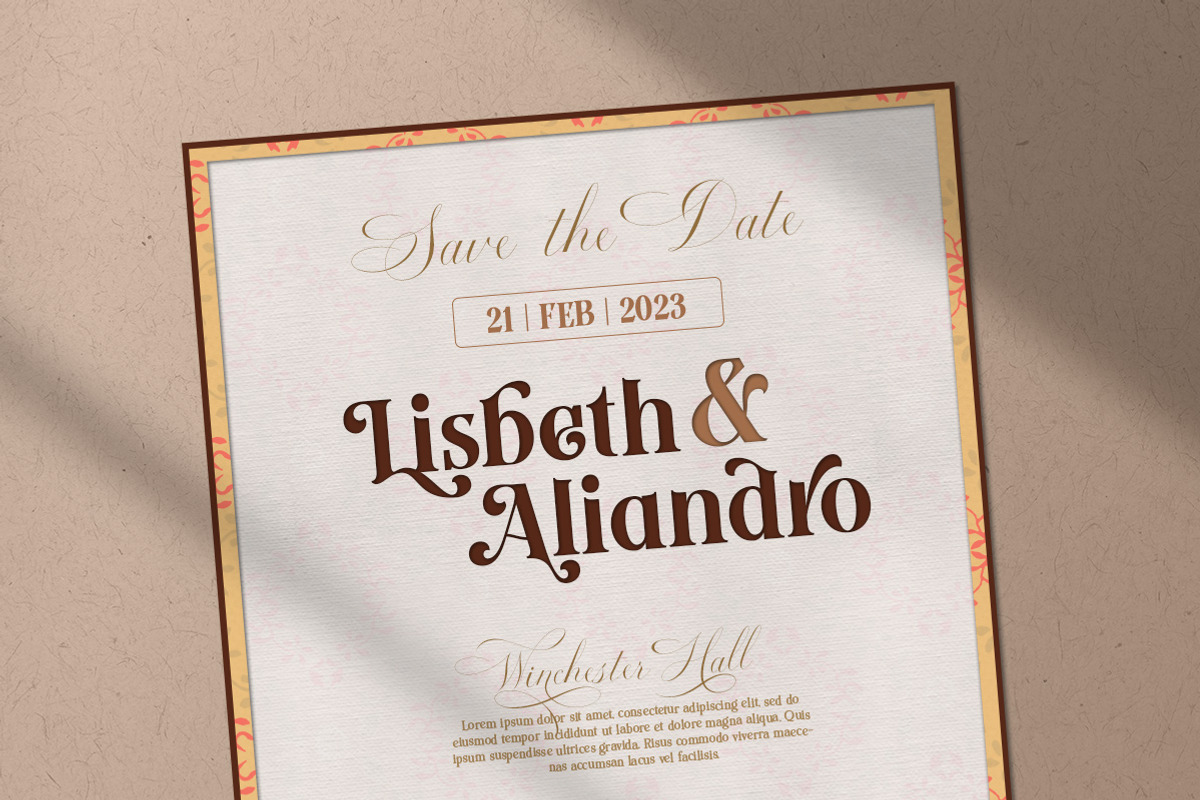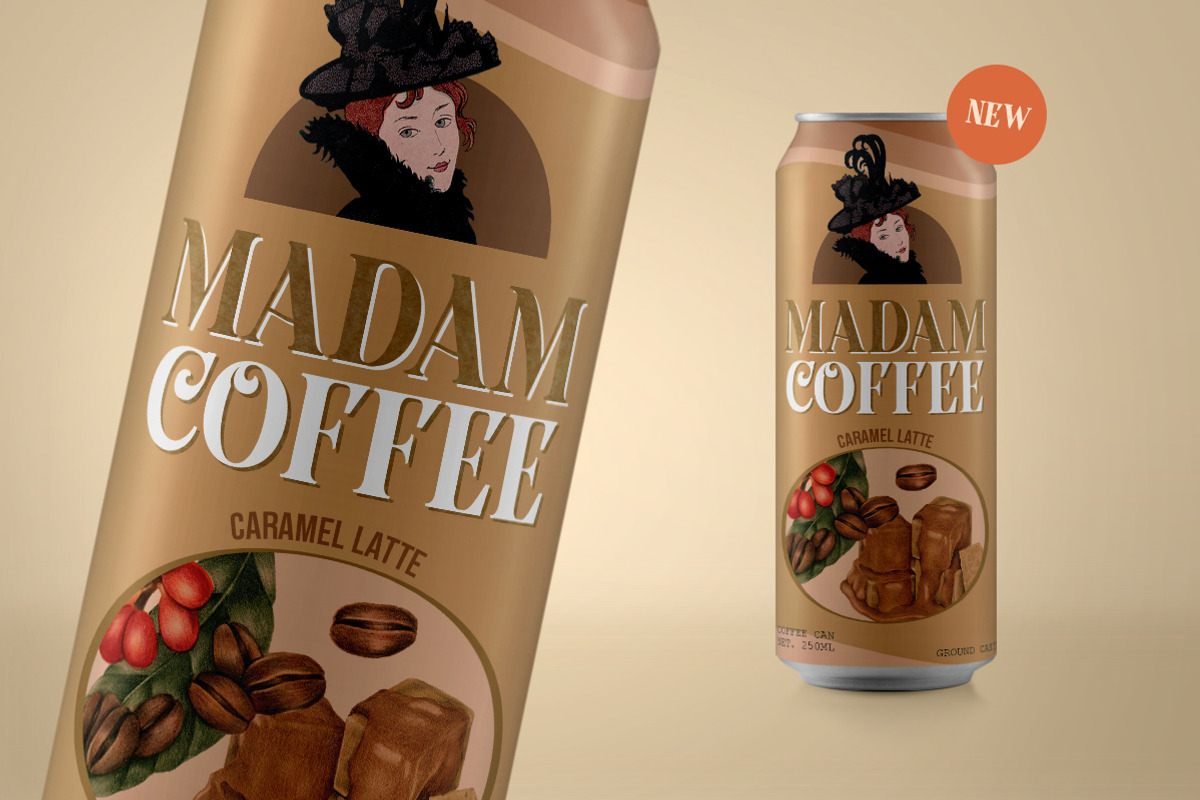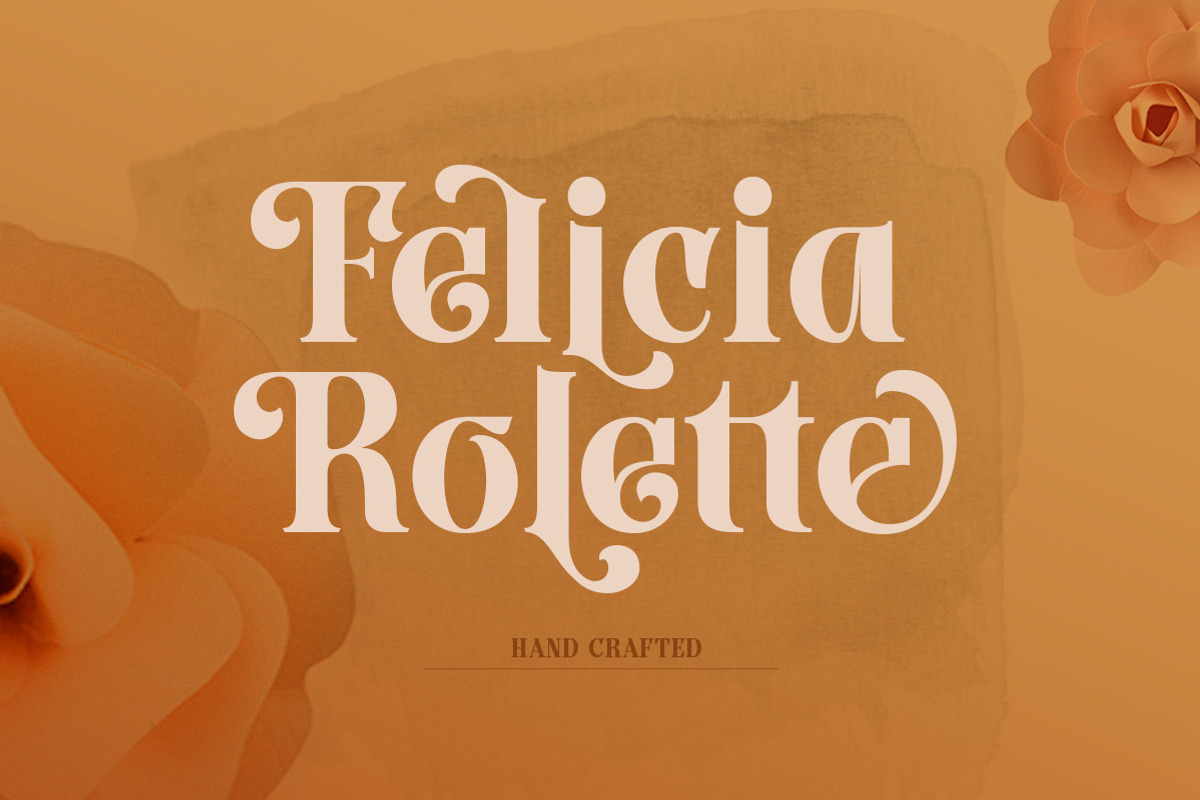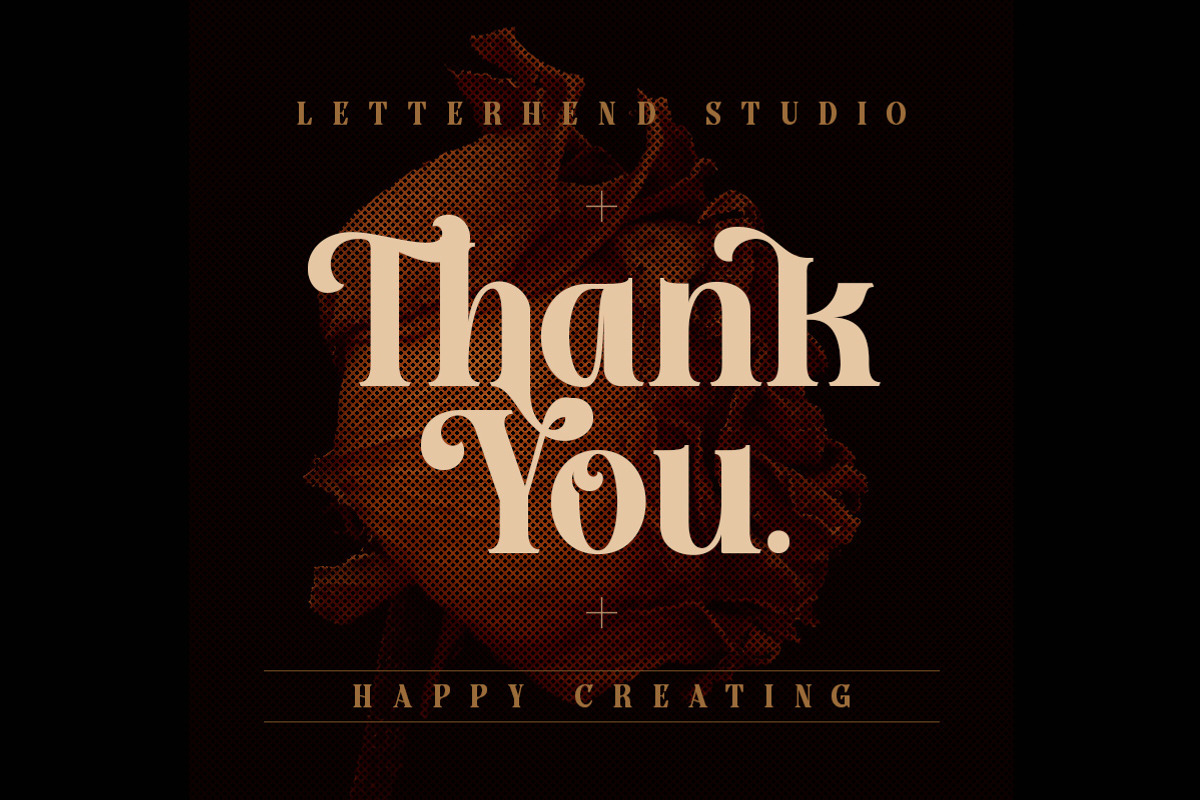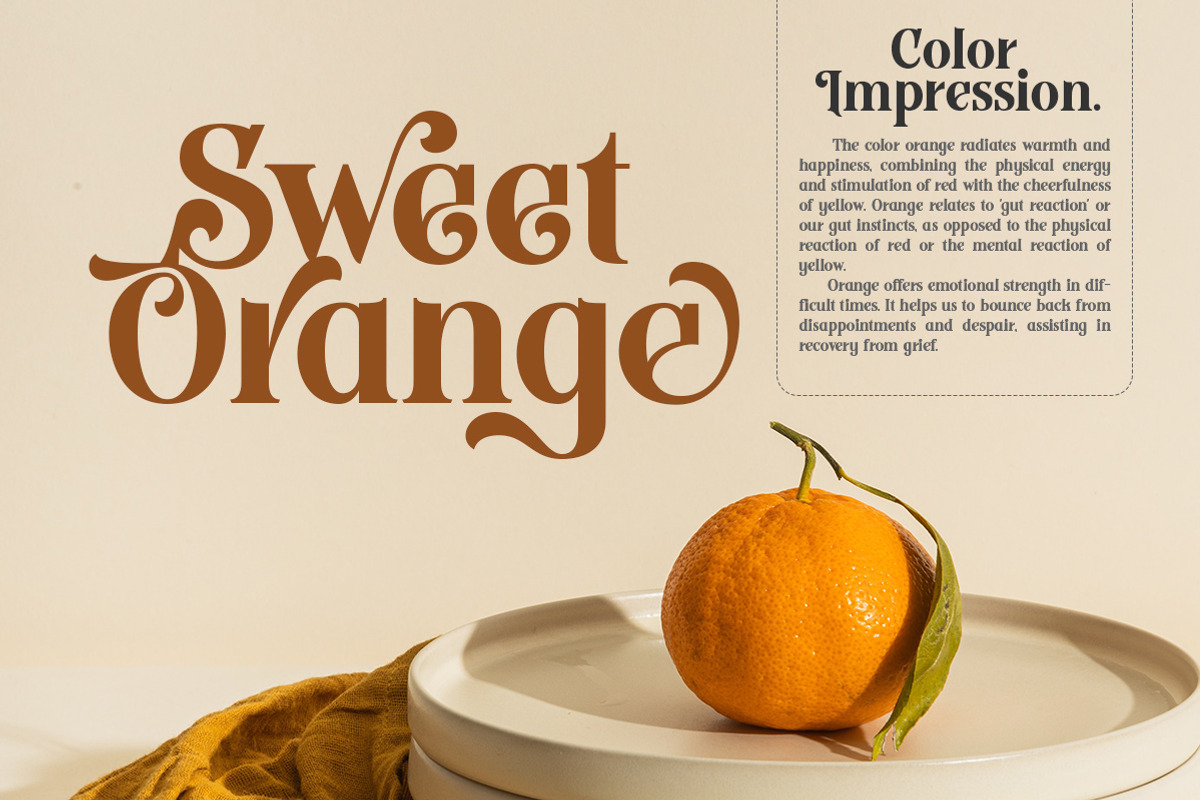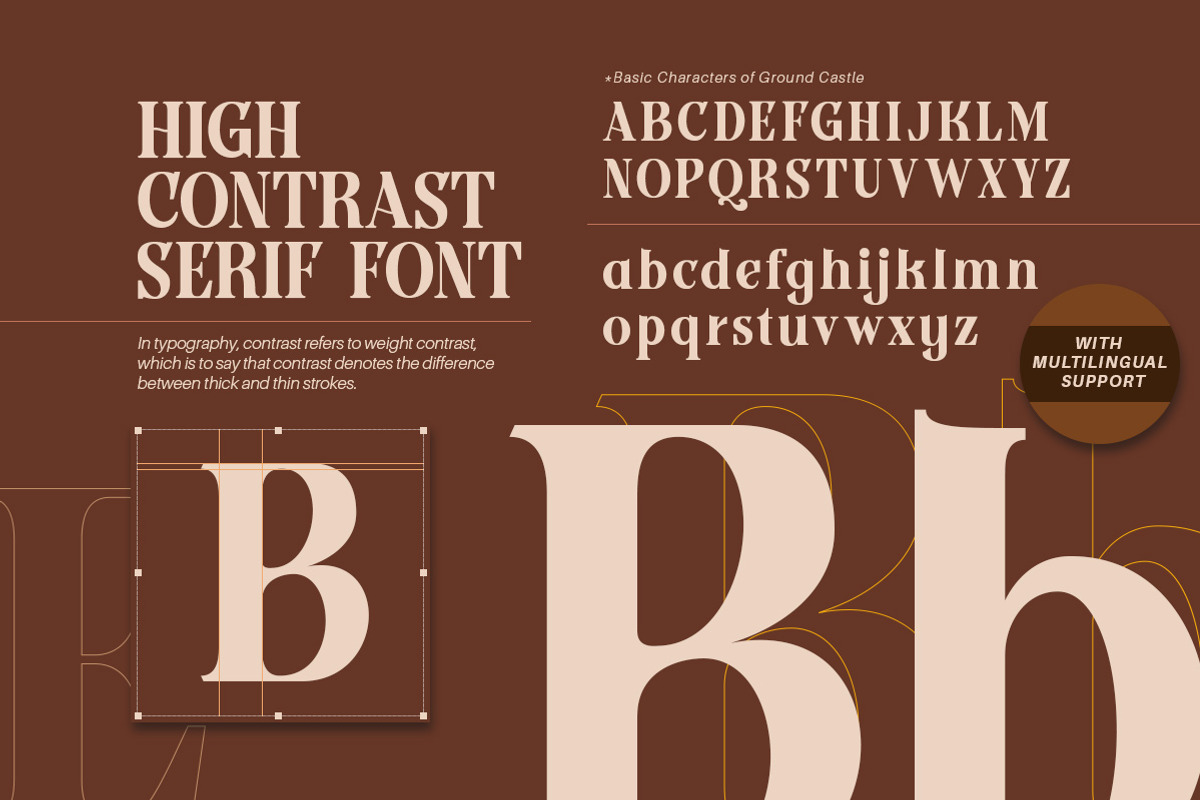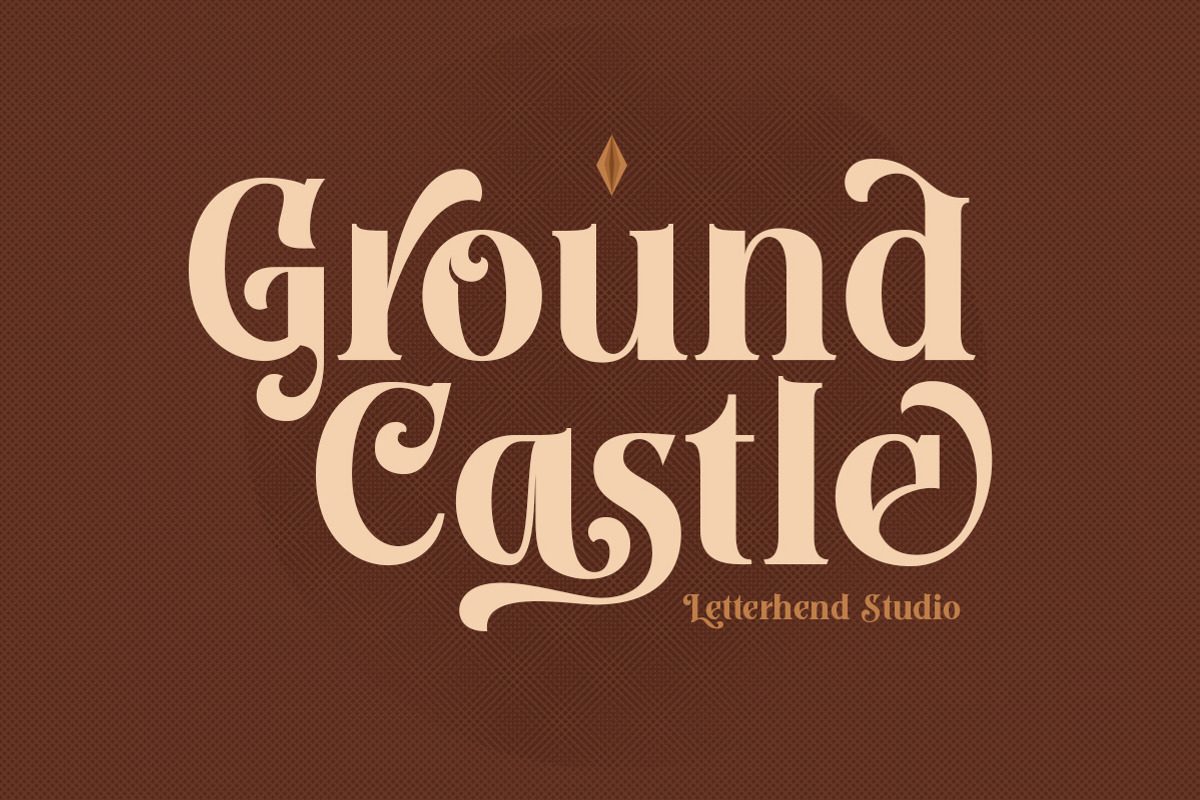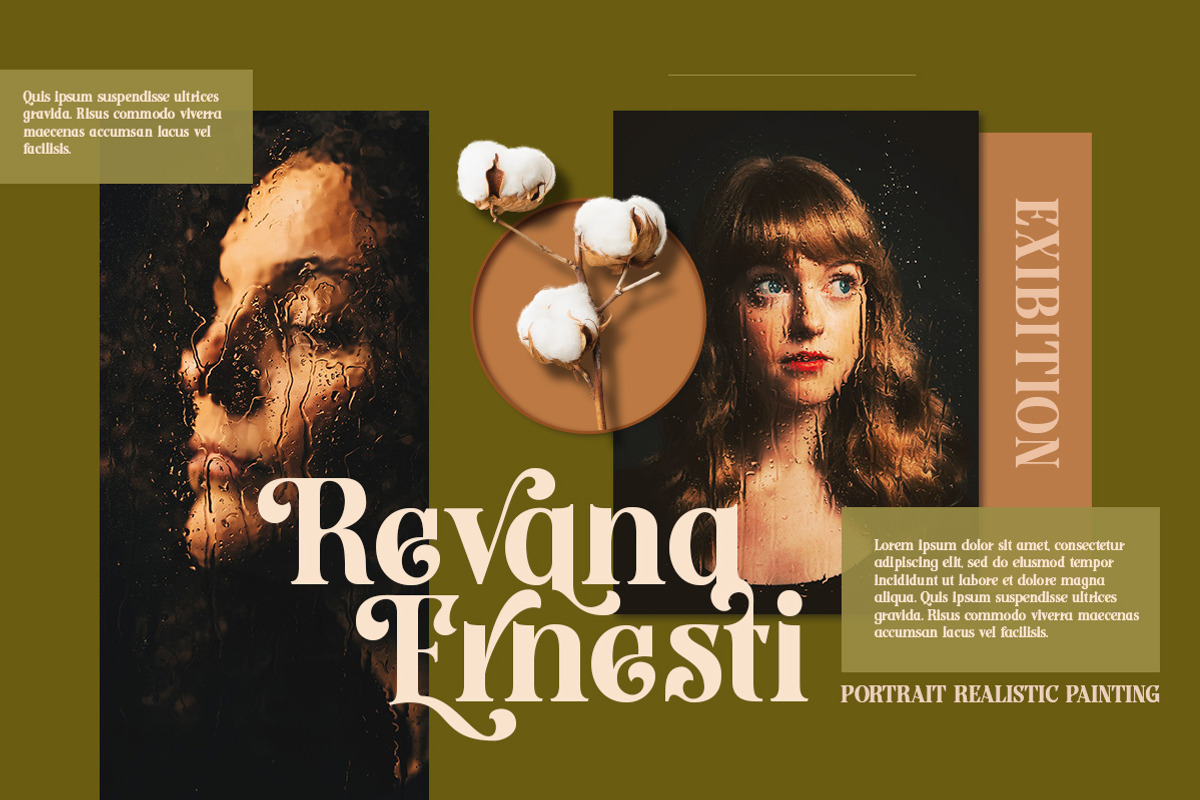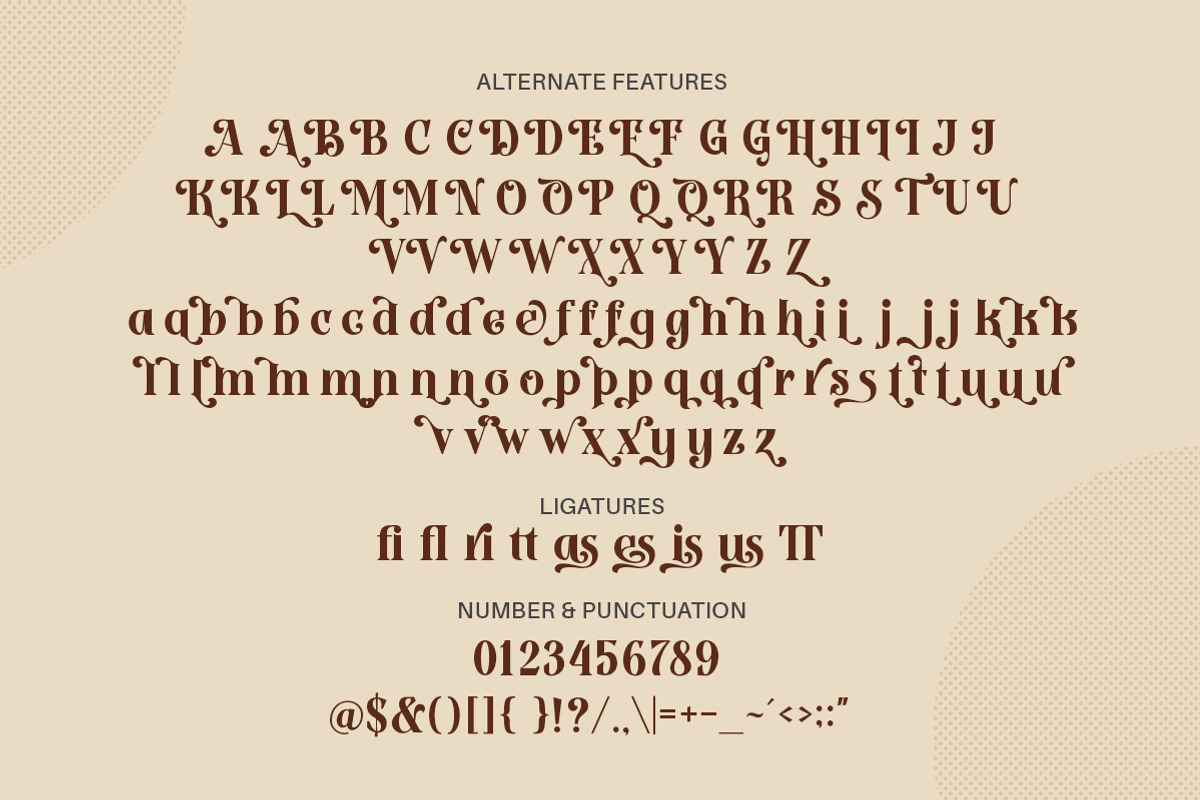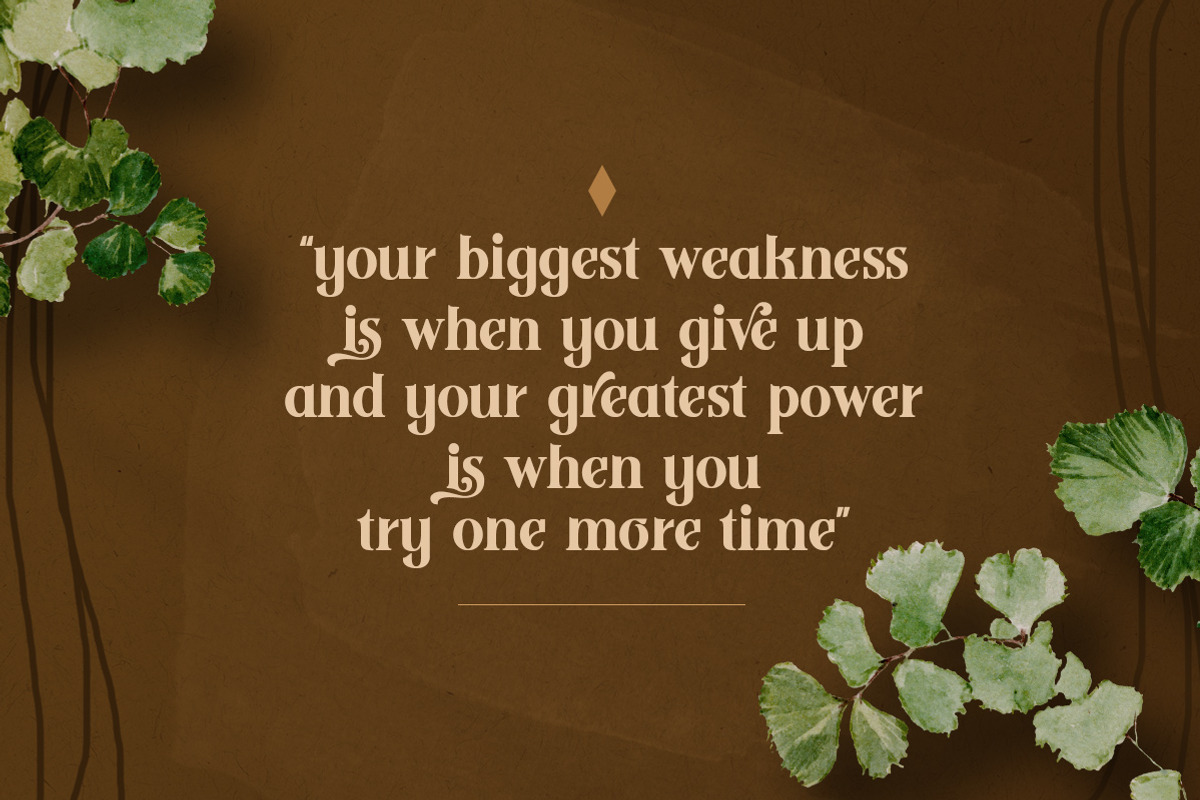
Ground Castle - High Contrast Serif
Introducing, Ground Castle - A Modern high contrast serif font with swashes. The stylistic alternates and ligatures make this font event more unique and stands from the crowd. This font perfectly made to be applied especially in logo, and the other various formal forms such as invitations, labels, logos, magazines, books, greeting / wedding cards, packaging, fashion, make up, stationery, novels, labels or any type of advertising purpose.
- alternates, swashes & ligatures